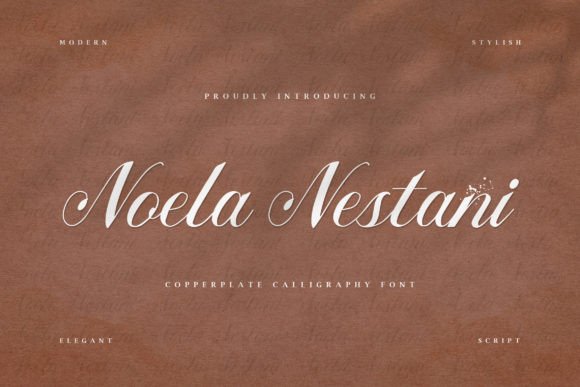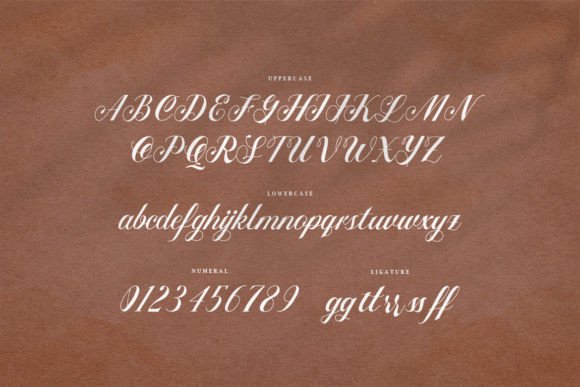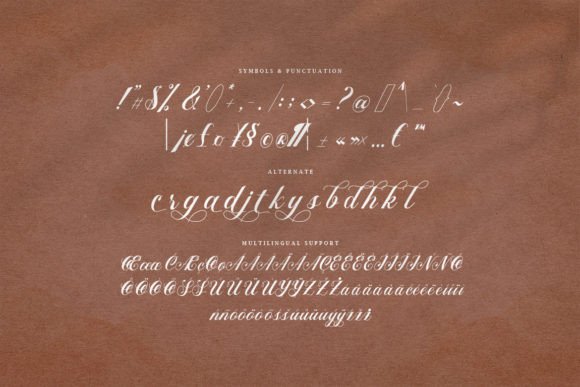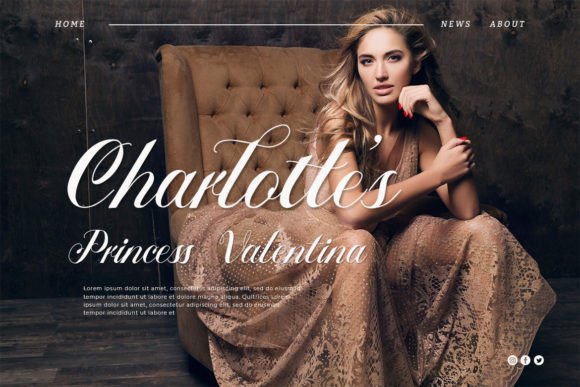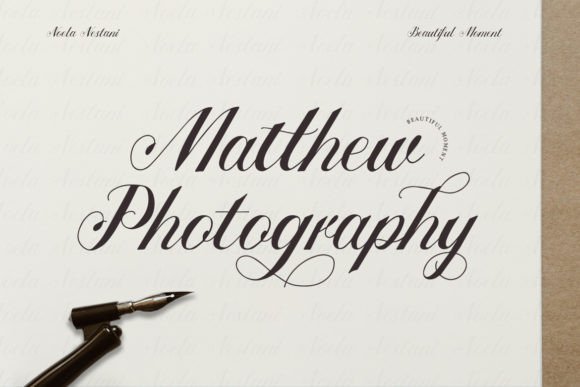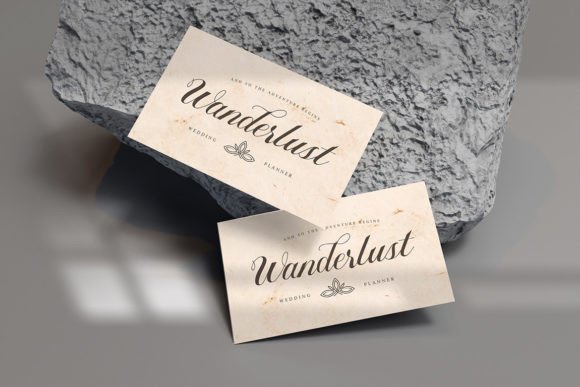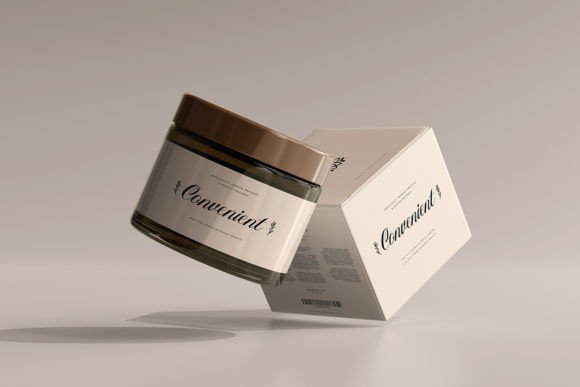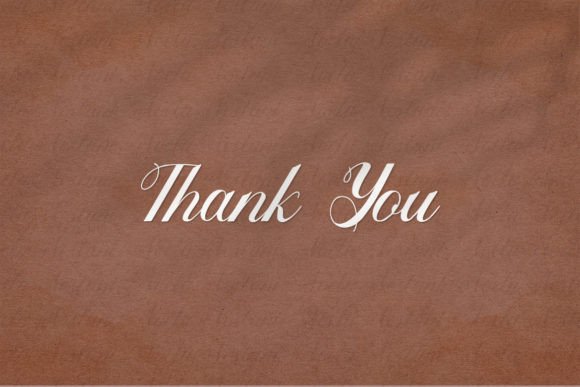
Noela Nestani Font
About Noela Nestani Font
“Noela Nestani” is a copperplate calligraphy font that embraces an authentic modern calligraphy look, making it an ideal choice for a wide array of design applications. This versatile font is perfect for branding and digital designs, offering a touch of elegance and sophistication to various projects.
The copperplate calligraphy style of “Noela Nestani” adds a refined and graceful quality to your designs. It is crafted with precision, capturing the essence of traditional calligraphy with a modern twist. This makes it suitable for a range of applications, from logos and wedding decor to invitations, home decor, websites, blogs, Instagram posts, business cards, branding, social media, and beyond.
In logos, “Noela Nestani” becomes a signature element, communicating a brand’s identity with a sense of elegance. Its modern calligraphy look adds a personal and artistic touch, making it memorable and distinctive. Wedding decor and invitations benefit from the font’s romantic and sophisticated aesthetic, setting the tone for special occasions.
In digital designs, “Noela Nestani” shines across various platforms, from websites and blogs to social media posts on Instagram. Its readability and stylish appearance make it versatile for a range of content, adding a touch of class to your online presence.
Whether you’re working on print materials or digital platforms, “Noela Nestani” proves to be a valuable asset for bringing a refined and authentic calligraphy style to your creative endeavors. Let this font be the elegant touch that elevates your designs across different mediums.